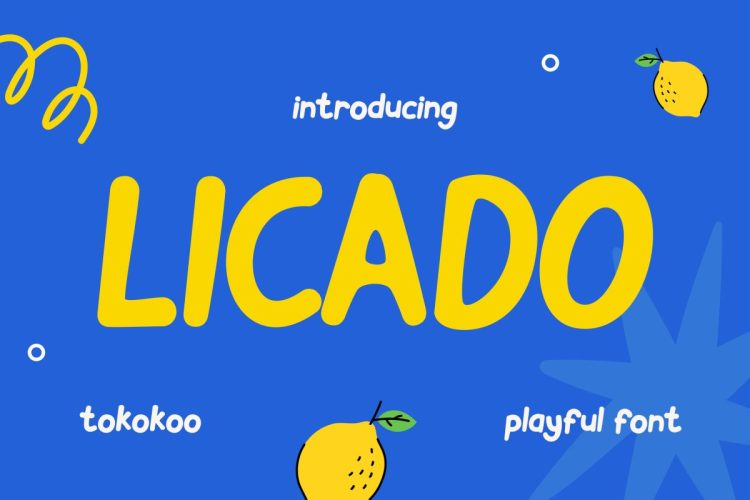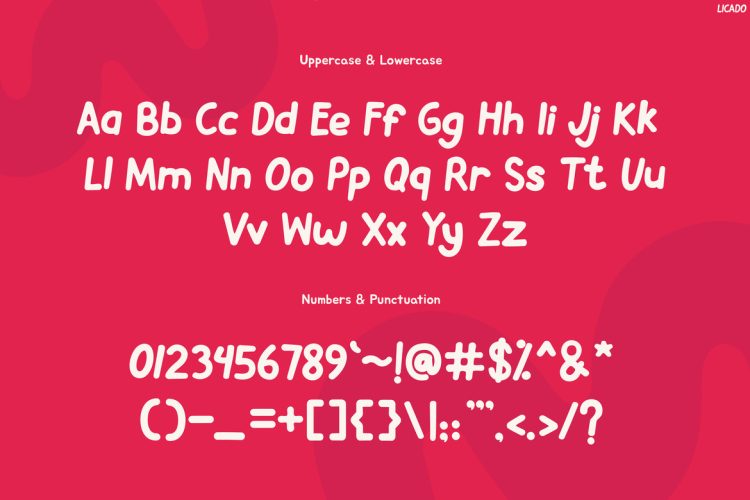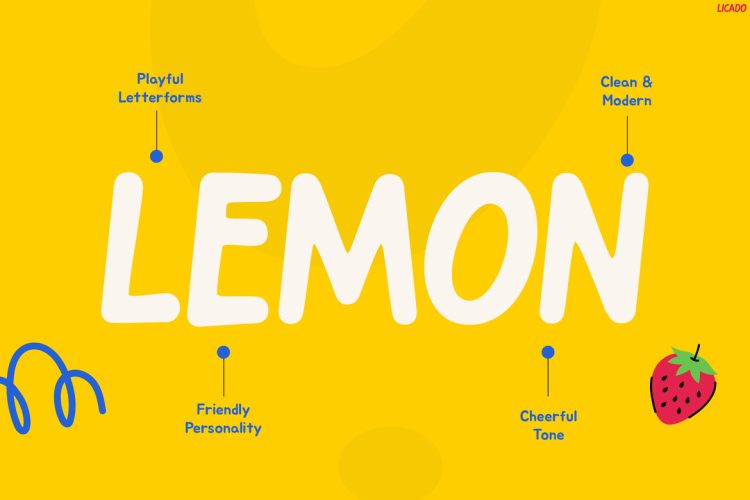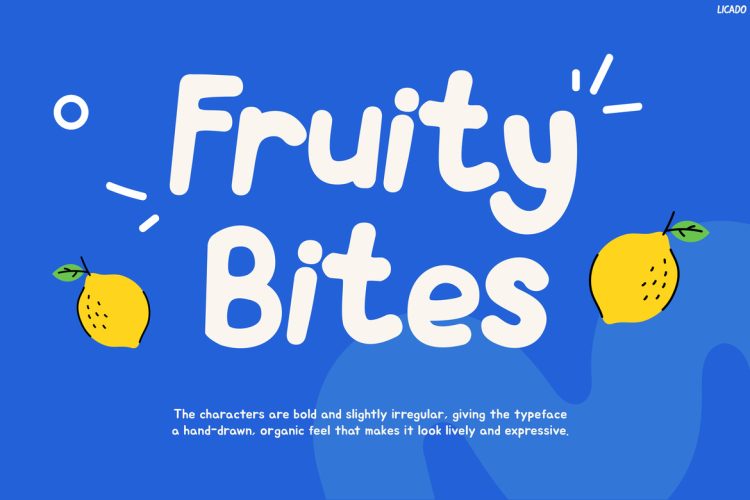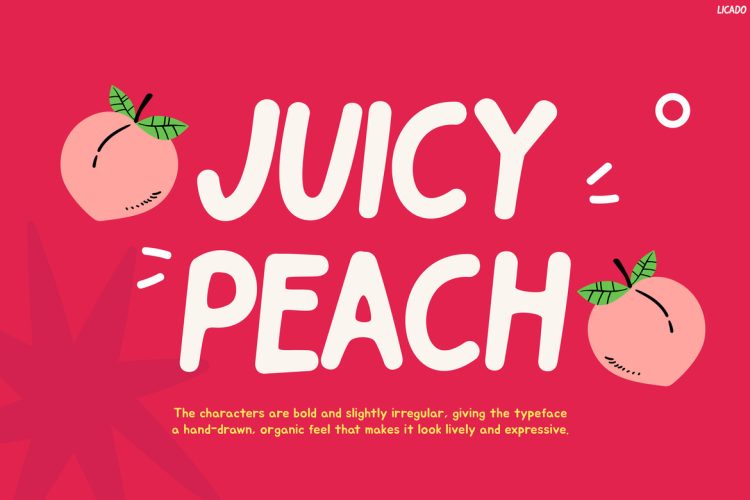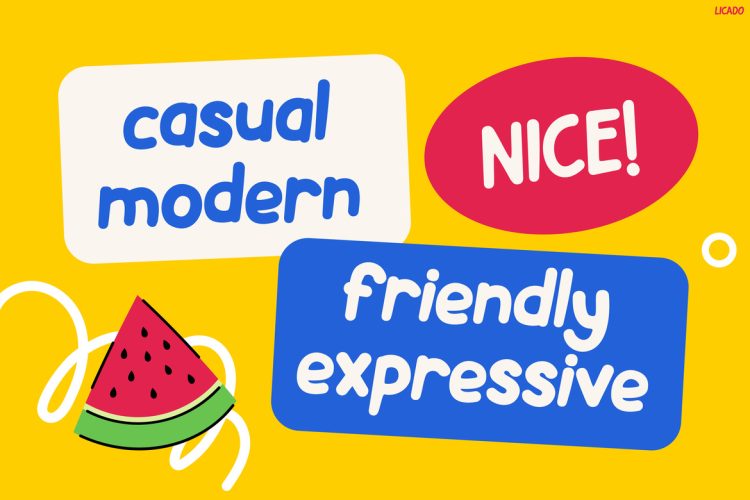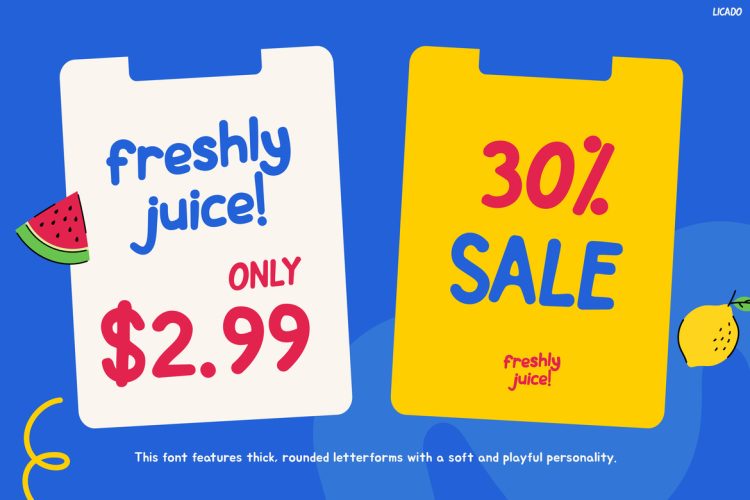
Licado โ Fresh, Fun & Playful Kids Font
Kids Font LICADO is a bright and cheerful display typeface designed to bring fun, color, and personality into creative kids-themed designs. Its rounded letterforms, playful curves, and friendly proportions instantly create a lively and welcoming look. Because of its soft shapes and expressive style, the font feels energetic and approachable. As a result, headlines become vibrant and easy to read. Moreover, the casual cartoon-inspired design gives the typography a fresh and joyful character that works perfectly for colorful layouts. Kids Font LICADO transforms simple words into playful visual elements that instantly grab attention.
LICADO combines playful handwritten-style letterforms with bold rounded shapes. Each character is designed with smooth curves and balanced spacing, which creates a friendly and modern appearance. Therefore, the typography feels fun while still remaining clear and readable.
Furthermore, LICADO works beautifully in projects that require a bright and cheerful atmosphere. For example, it looks fantastic in fruit-themed branding, snack packaging, juice labels, childrenโs posters, and playful advertisements. In addition, the energetic style makes it ideal for social media graphics, fun marketing campaigns, and colorful product promotions. Because of this versatility, the font adapts easily to both digital and print designs.
Font LICADO is perfect for graphic designers, illustrators, food brands, childrenโs businesses, and creative studios. It works especially well for juice packaging, fruit branding, snack labels, kids menus, playful posters, childrenโs books, colorful advertisements, and fun social media content.